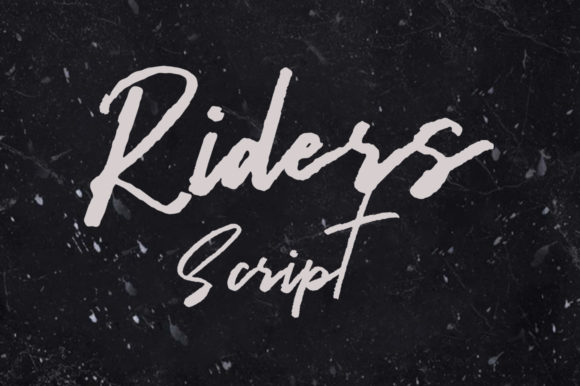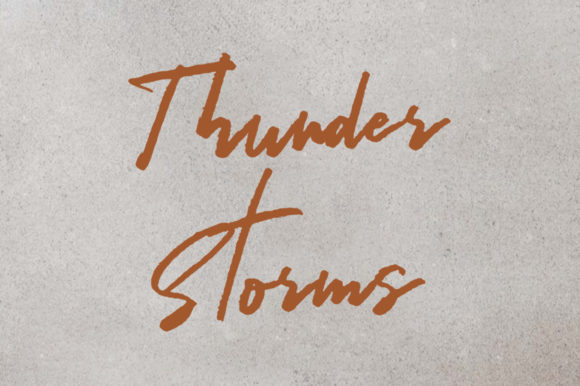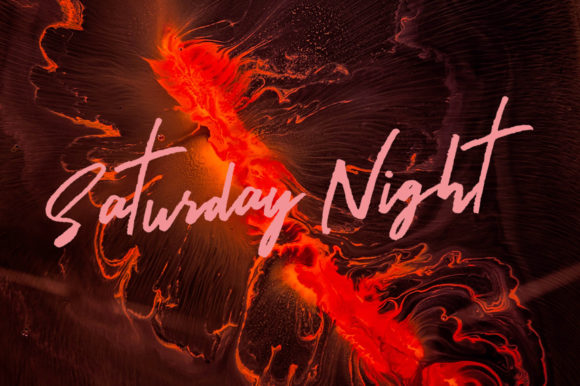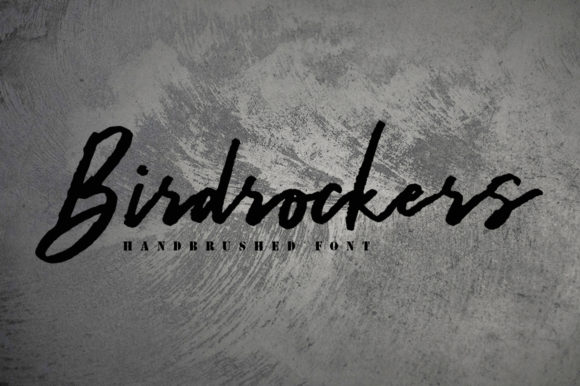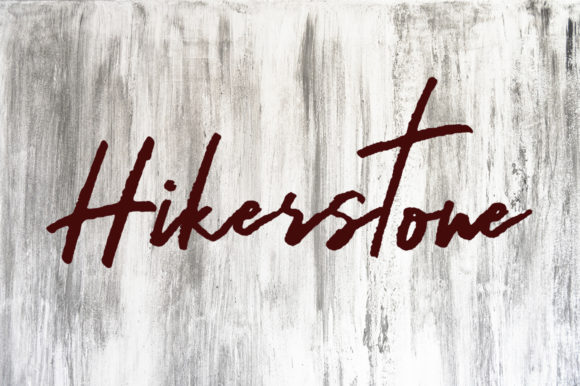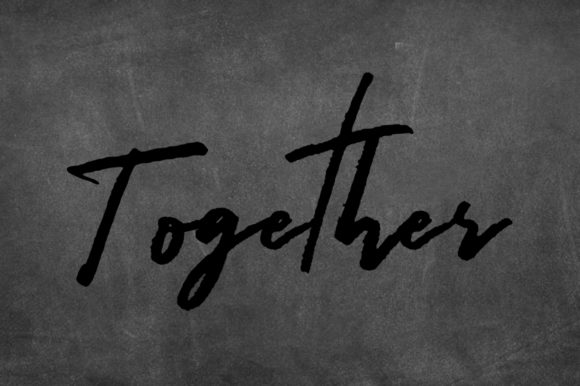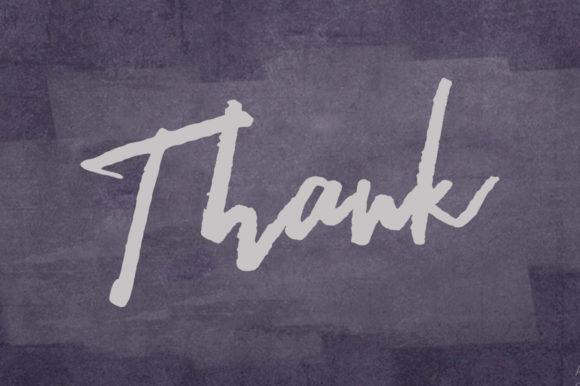
Riders Font
About Riders Font
Riders is any edgy script font that can add life and excitement to any design. Make use of its daring handwritten flourishes!